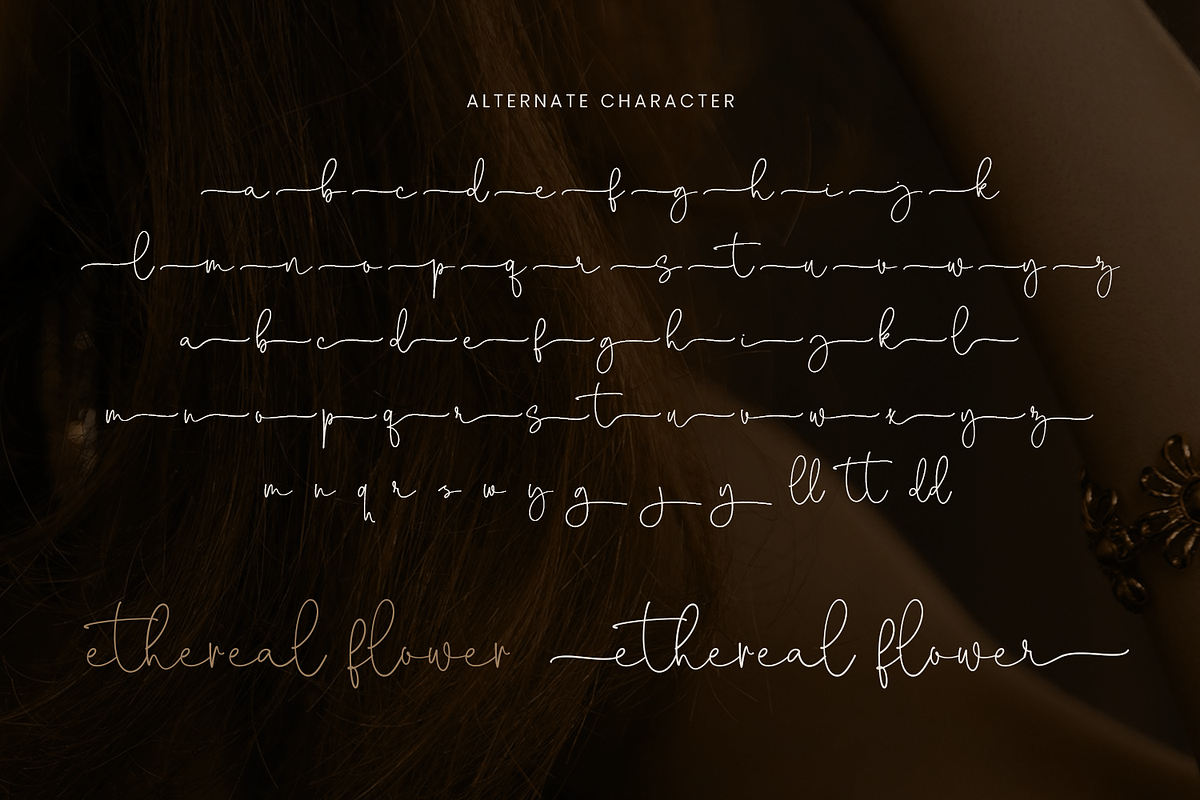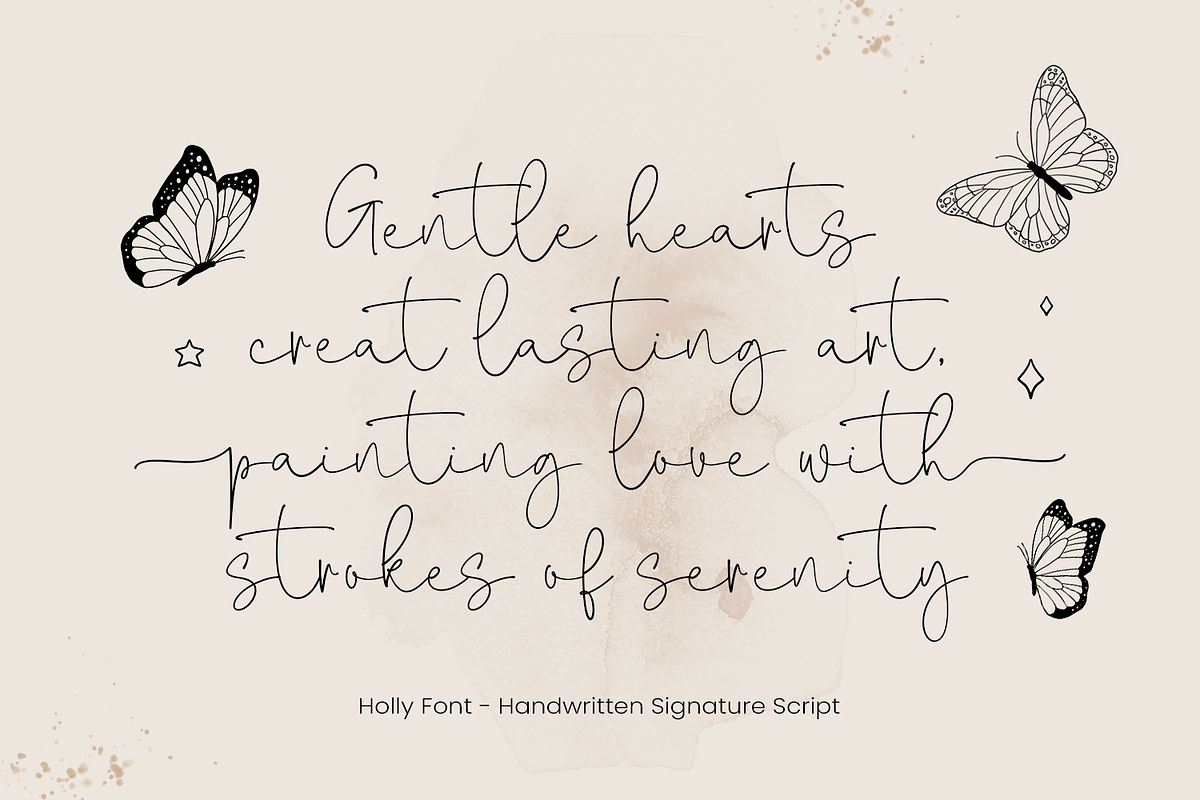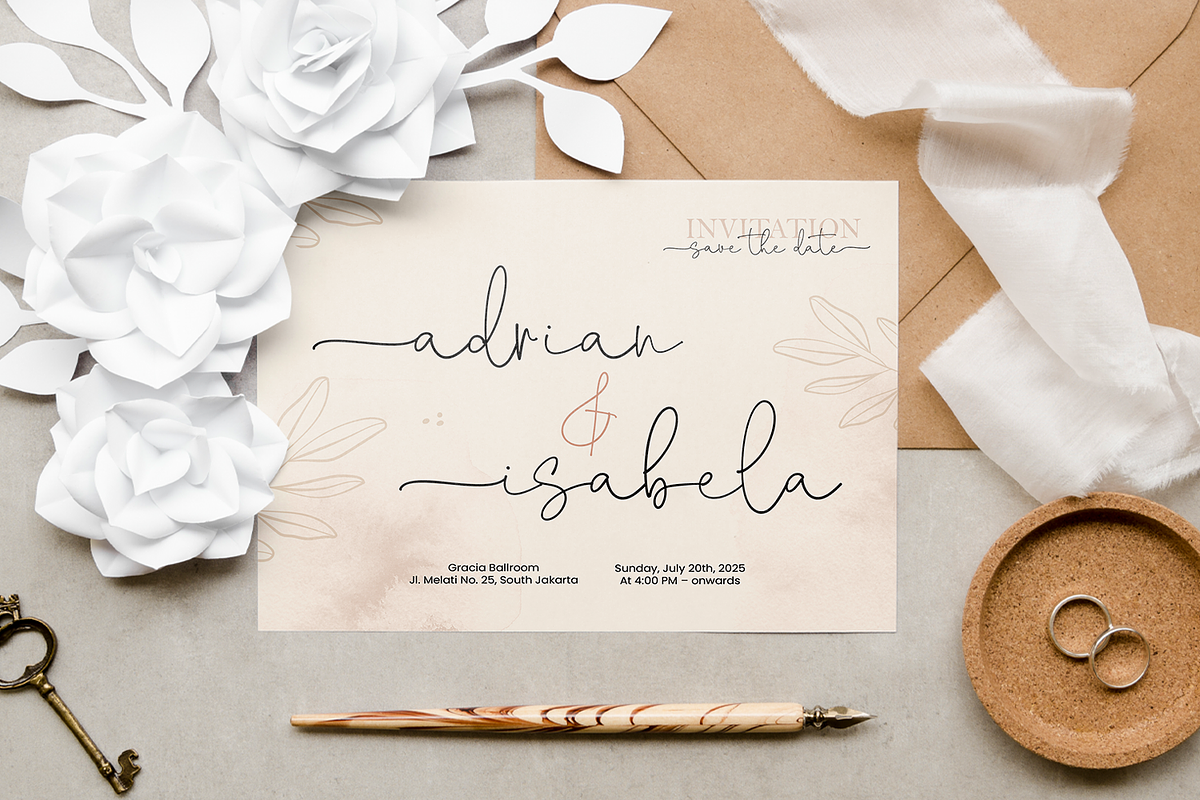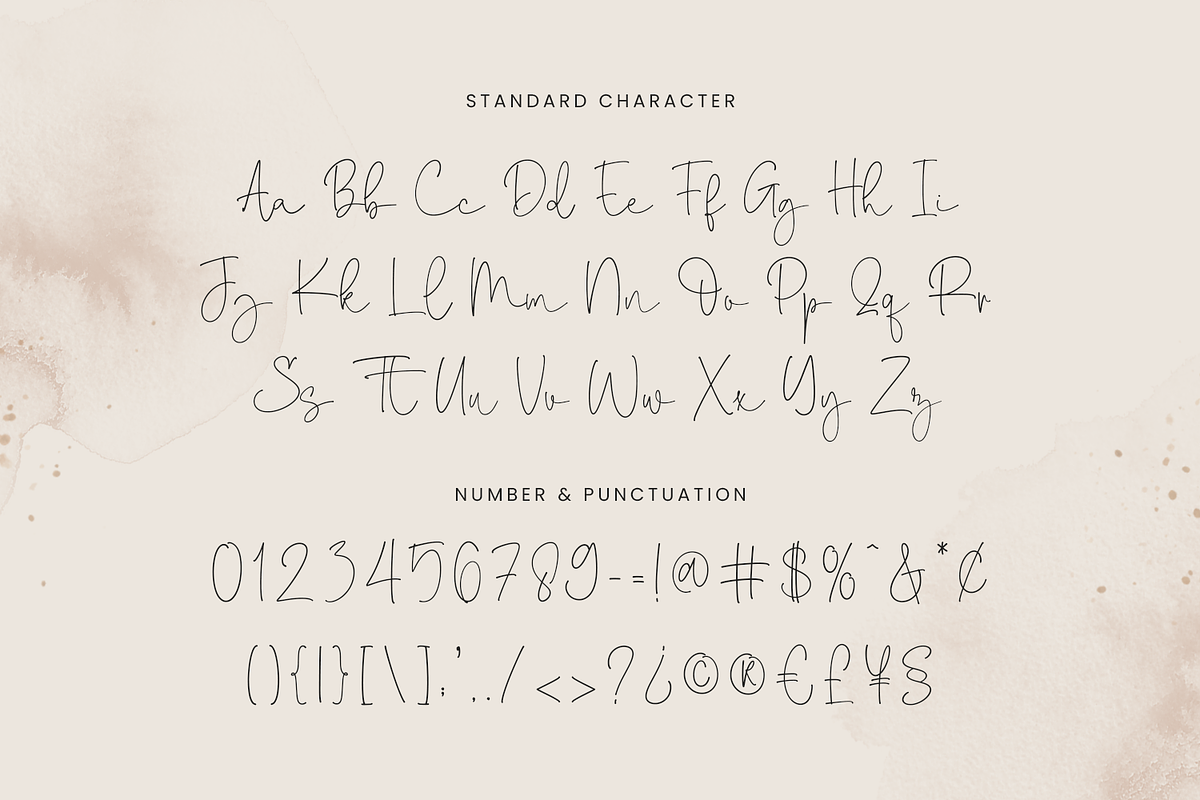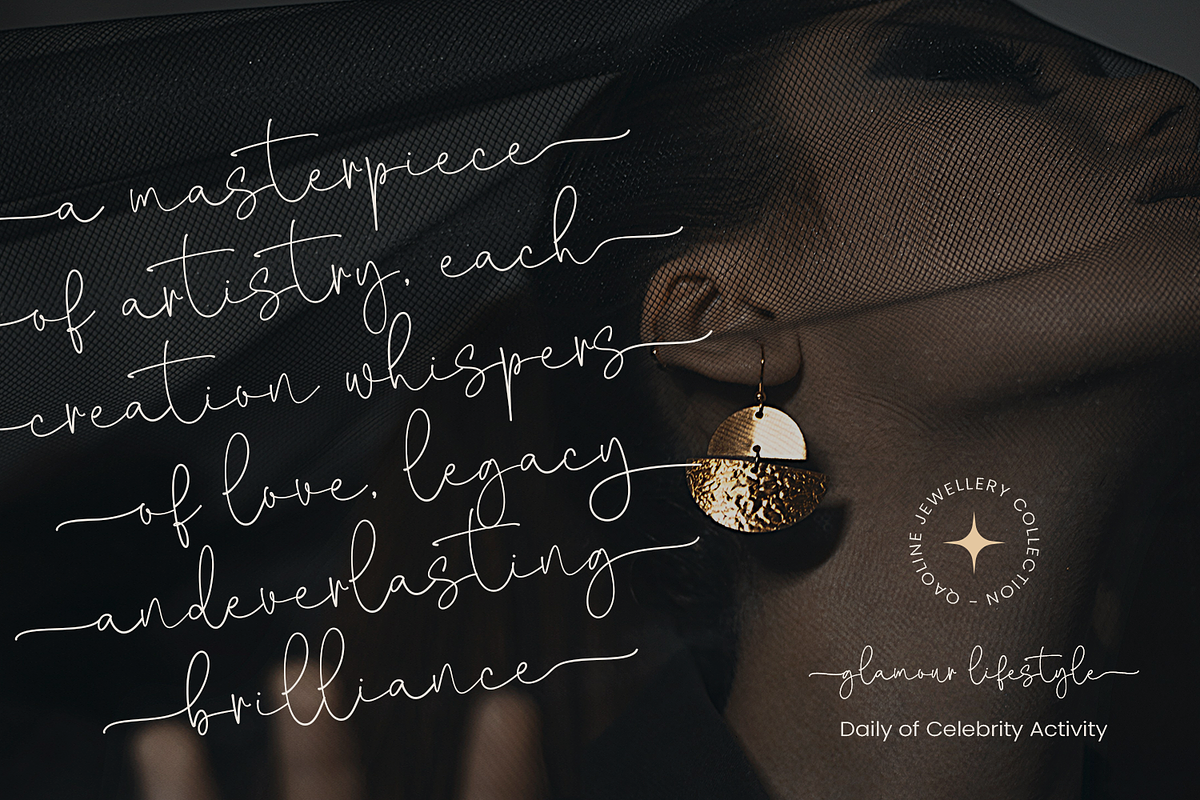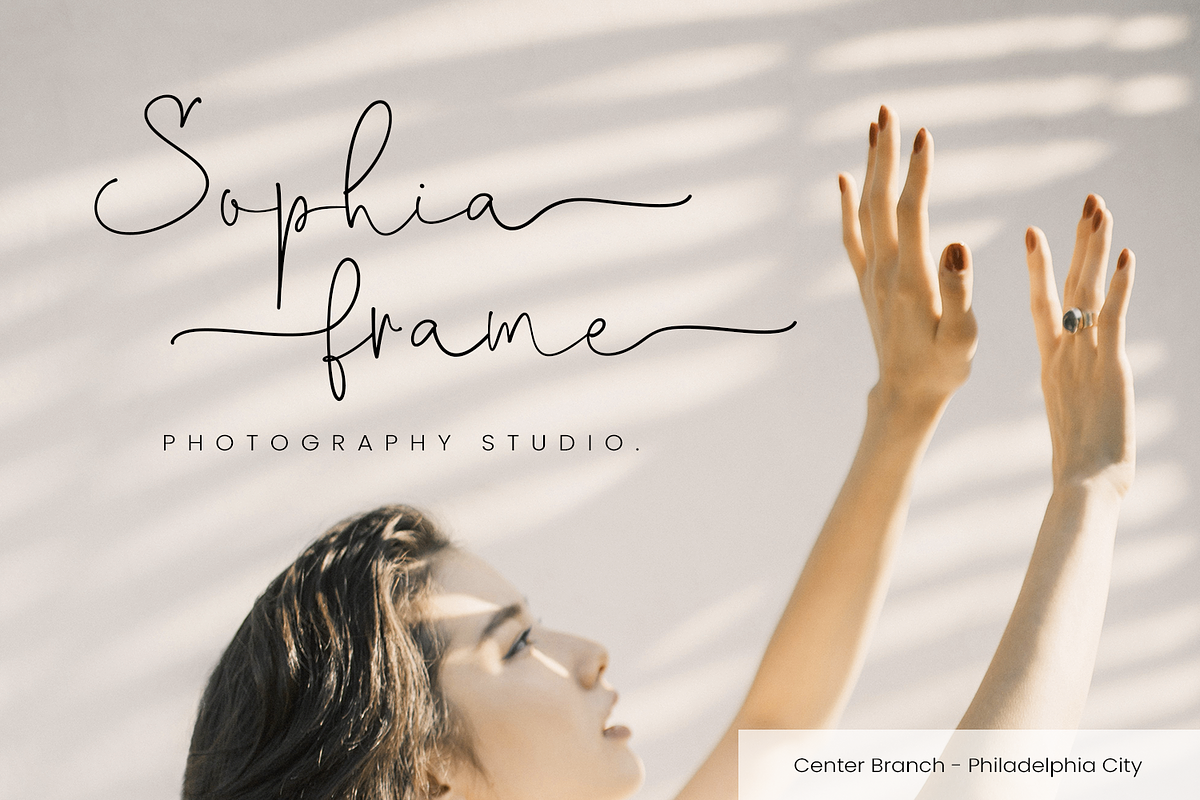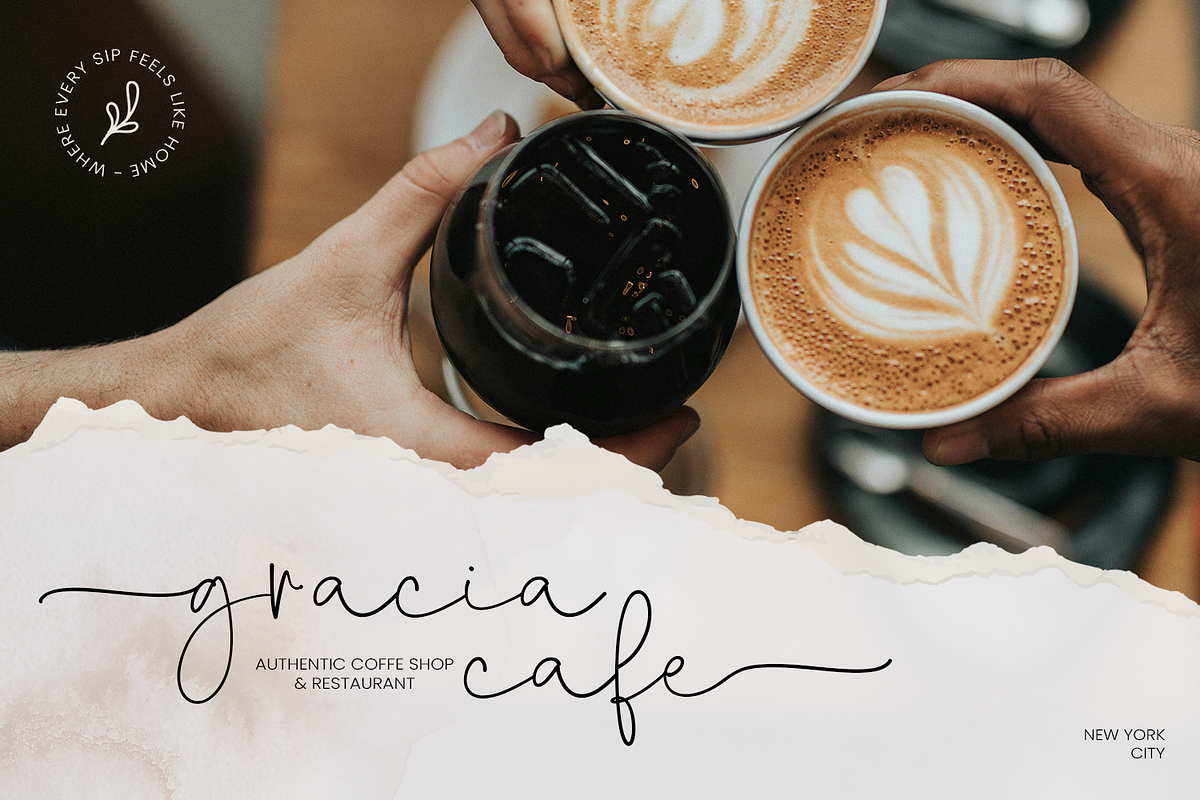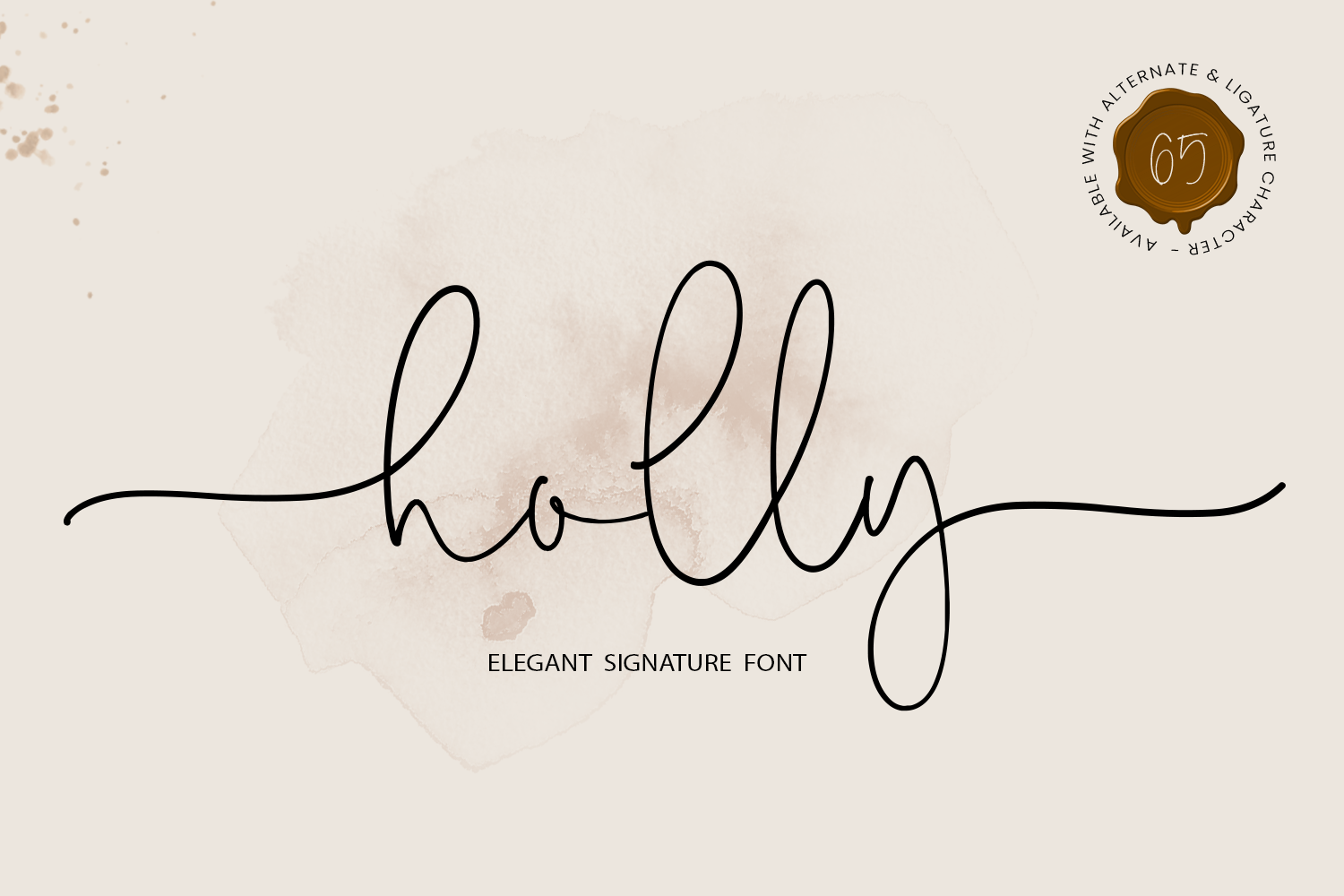
Holly - Christmas Font
Holly - Christmas Font With Style Signature
Introducing Holly, a stunning script handwritten font that brings the warmth and sparkle of the festive season to your designs. With its elegant signature style and flowing curves, Holly is perfect for Christmas projects, Thanksgiving themes, wedding invitations, birthday cards, and so much more. It adds a joyful and classy touch to every creative work, making it ideal for both digital and craft projects.
Each character in Holly comes with beautiful beginning and ending swash tails, giving your text a smooth and graceful finish. This makes it perfect for Cricut designs, embroidery projects, lettering art, SVG crafts, and seasonal creations for Easter, spring, summer, or autumn. The handwriting flow gives your designs a natural festive elegance.
Holly is also packed with many alternate characters and swashes, allowing you to create unique letter combinations that suit your creative vision. You can easily switch between stylistic alternates to make your text stand out—whether for branding, invitations, or handmade craft projects.